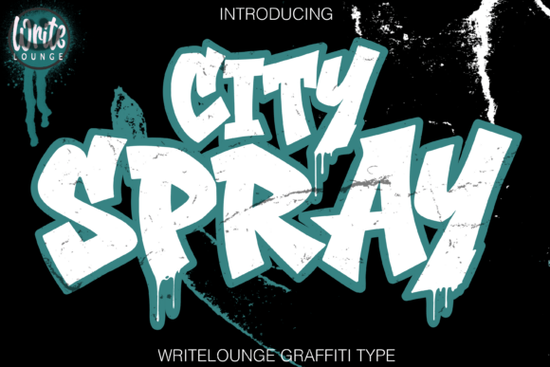
If you're working on a design that needs to feel energetic, urban, and unapologetically bold, the City Spray Font might be exactly what you’re looking for. This graffiti-inspired display typeface captures the raw, hand-sprayed aesthetic of street art without sacrificing legibility or versatility. Whether you're designing merch for a local hip hop crew, creating eye-catching posters, or adding edge to your gaming stream graphics, City Spray delivers attitude with every letter.
What sets City Spray apart is its balance of authenticity and usability. The letters have sharp angles, uneven strokes, and subtle drips hallmarks of real spray-paint lettering but they’re crafted cleanly enough to work well in digital formats and printed products alike. That makes it especially useful for print-on-demand sellers who want their T-shirts, mugs, or stickers to stand out without looking messy or amateurish.
What kinds of projects work best with City Spray?
This font shines when used as a headline or focal point not for body text, but for titles, logos, and short phrases that need to grab attention. Here are a few project types where it really fits:
- Streetwear branding – Think logo tees, hoodies, and sneaker tags.
- Music visuals – Album covers, mixtape artwork, or social promo for hip hop, trap, or electronic artists.
- Gaming content – Stream overlays, YouTube thumbnails, or team branding with an underground vibe.
- Event posters – Block parties, skate competitions, or urban art festivals.
- Social media graphics – Quotes, announcements, or reels that need high visual impact.
Because of its strong outlines and exaggerated forms, City Spray pairs best with clean, minimal backgrounds or complementary fonts that don’t compete for attention. A simple sans-serif like Helvetica or even a neutral handwritten style can provide balance.
How does it compare to other display fonts?
If you’ve browsed Creative Fabrica’s display font collection, you’ve probably seen options like The Silent Murder, which leans into horror and thriller aesthetics, or Merry Christmas Duo, built for festive cheer. City Spray sits firmly in the urban, youth-culture lane closer in spirit to fonts like Bright Zombie (which mixes grunge with cartoon energy) or Super Touchdown (designed for sports hype).
Unlike seasonal or niche-themed fonts, City Spray has broad appeal across subcultures. It doesn’t lock you into one holiday, genre, or trend. That longevity makes it a smart addition to your toolkit if you regularly create content for clients or brands with an edgy identity.
Tips for using City Spray effectively
Like any expressive font, less is often more. Here’s how to get the most out of it:
- Avoid overuse. One or two words in City Spray will pop; a full paragraph will overwhelm.
- Play with scale. Enlarge key words for dramatic effect especially in posters or digital banners.
- Add texture sparingly. A subtle grunge overlay or concrete background can enhance the urban feel without cluttering the design.
- Check readability. Some letterforms (like “a” or “g”) have stylized shapes preview them in context before finalizing.
- Use color intentionally. Bright neons mimic fresh spray paint; black-on-white gives a stencil look; metallic tones add street-luxury flair.
Remember, the goal isn’t just to look “cool” it’s to communicate a specific mood that aligns with your audience. City Spray works because it feels genuine, not gimmicky.
Ready to try it?
If your next project calls for boldness with a streetwise soul, City Spray offers a reliable, well-crafted way to deliver that message. It’s especially valuable for small businesses and indie creators who want professional-looking designs without hiring a custom lettering artist.